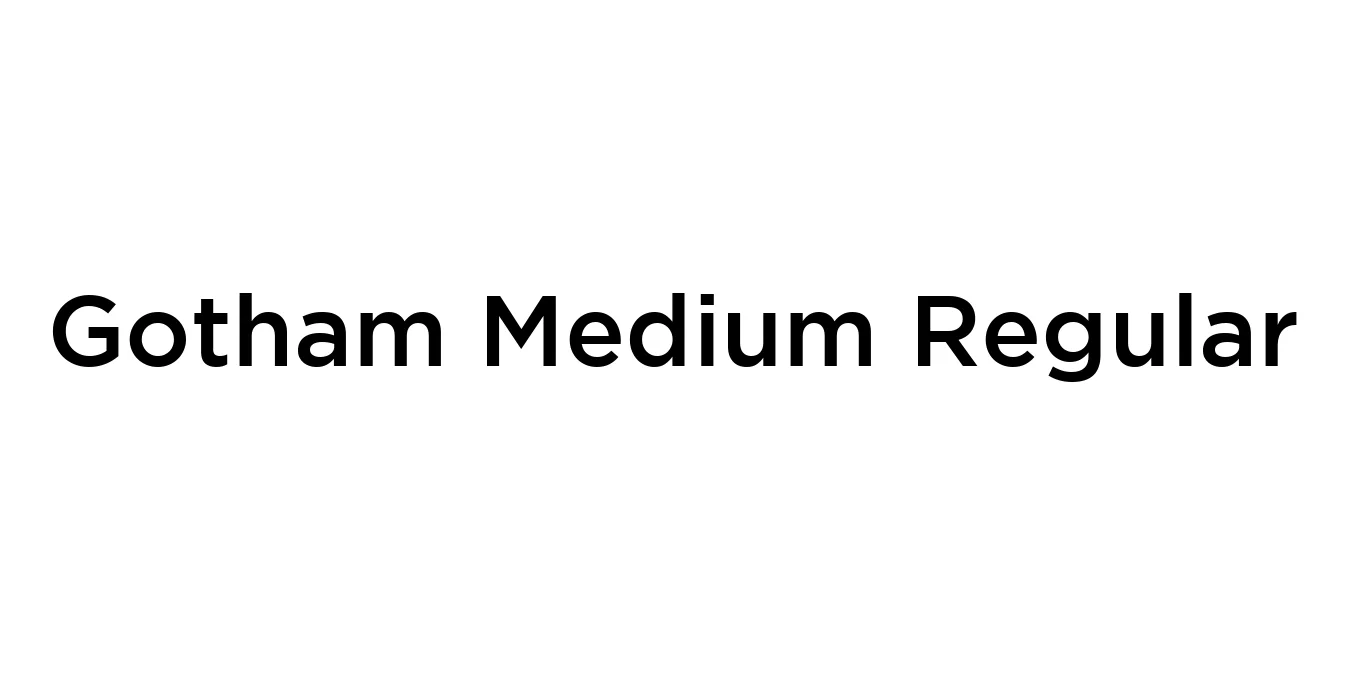
Gotham Medium Regular
Designed by Tobias Frere-Jones
Gotham Medium Regular was designed by Tobias Frere-Jones in 2000, originally commissioned by GQ magazine for a fresh, masculine, and authoritative aesthetic. The typeface was deeply inspired by the vernacular architectural signage found throughout New York City, particularly the lettering seen on building entrances and porticos from the mid-20th century. It captures a uniquely American spirit that is both honest and sophisticated.
The font gained worldwide recognition and cultural significance during the 2008 Barack Obama presidential campaign, where its clean, geometric lines became synonymous with a message of hope and modernity. Gotham has since become a staple in the design world, praised for its versatility, high legibility, and its ability to appear both contemporary and timeless across digital and print mediums.
Gotham Medium Regular Best Uses
Excellent for creating strong, trustworthy brand logos and stationery.
Perfect for headlines and sub-headers in high-end magazine layouts.
Proven effectiveness in high-visibility public messaging and posters.
Highly legible for web headers and navigation menus on professional websites.